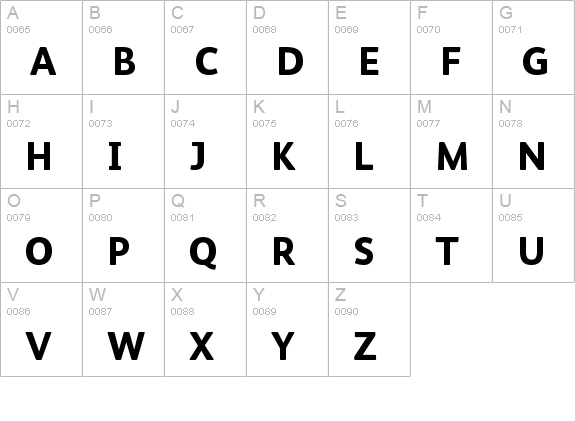
FSAlbert ExtraBold is an extra-heavy, attention-grabbing variant in the FSAlbert typeface family \xE2\x80\x94 well suited to high-impact headlines, posters, and bold branding.
FSAlbert ExtraBold font is a striking and powerful typeface that commands attention with its bold and distinctive design. With thick strokes and a modern aesthetic, this font is perfect for headlines, titles, and other display purposes that require a strong presence. The extra bold weight ensures that your message will be communicated loud and clear. What sets FSAlbert ExtraBold font apart is that it is not only visually impactful, but also free to download. Yes, you read that right - this versatile typeface is freely available for download at FontsMarket.com. Whether you're a designer looking to add a bold touch to your projects or a business seeking a standout font for your branding, FSAlbert ExtraBold has got you covered. Download it today and make a statement with your typography!